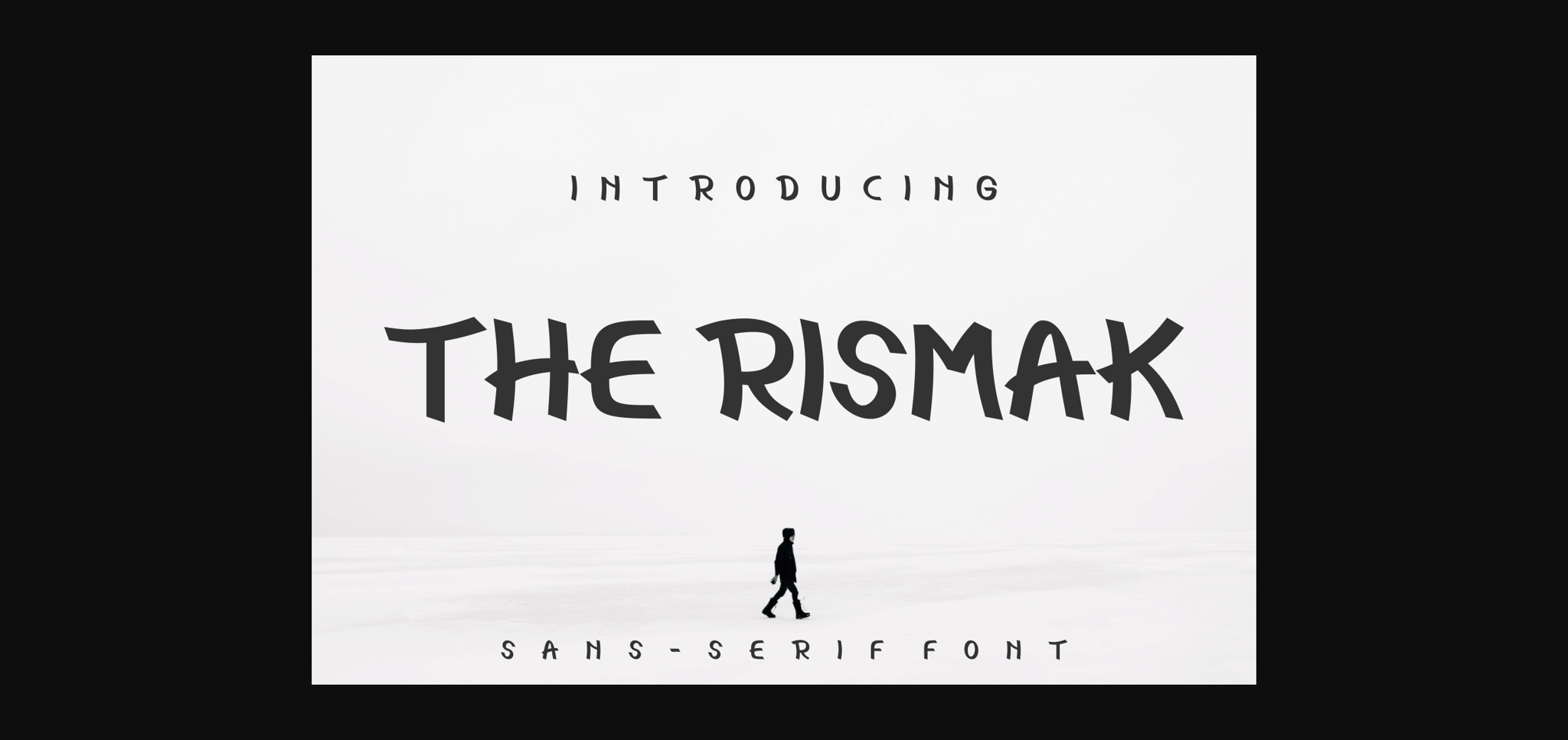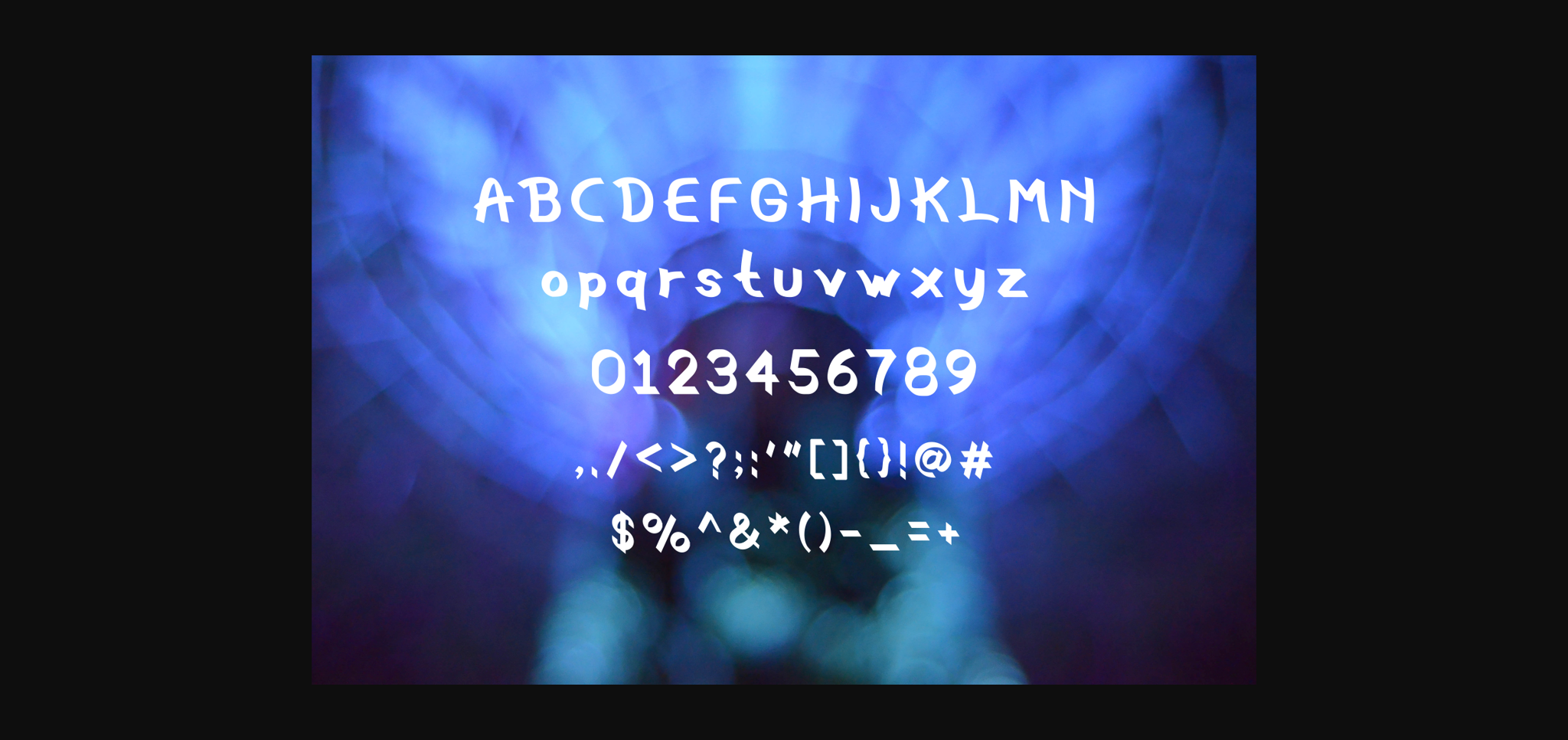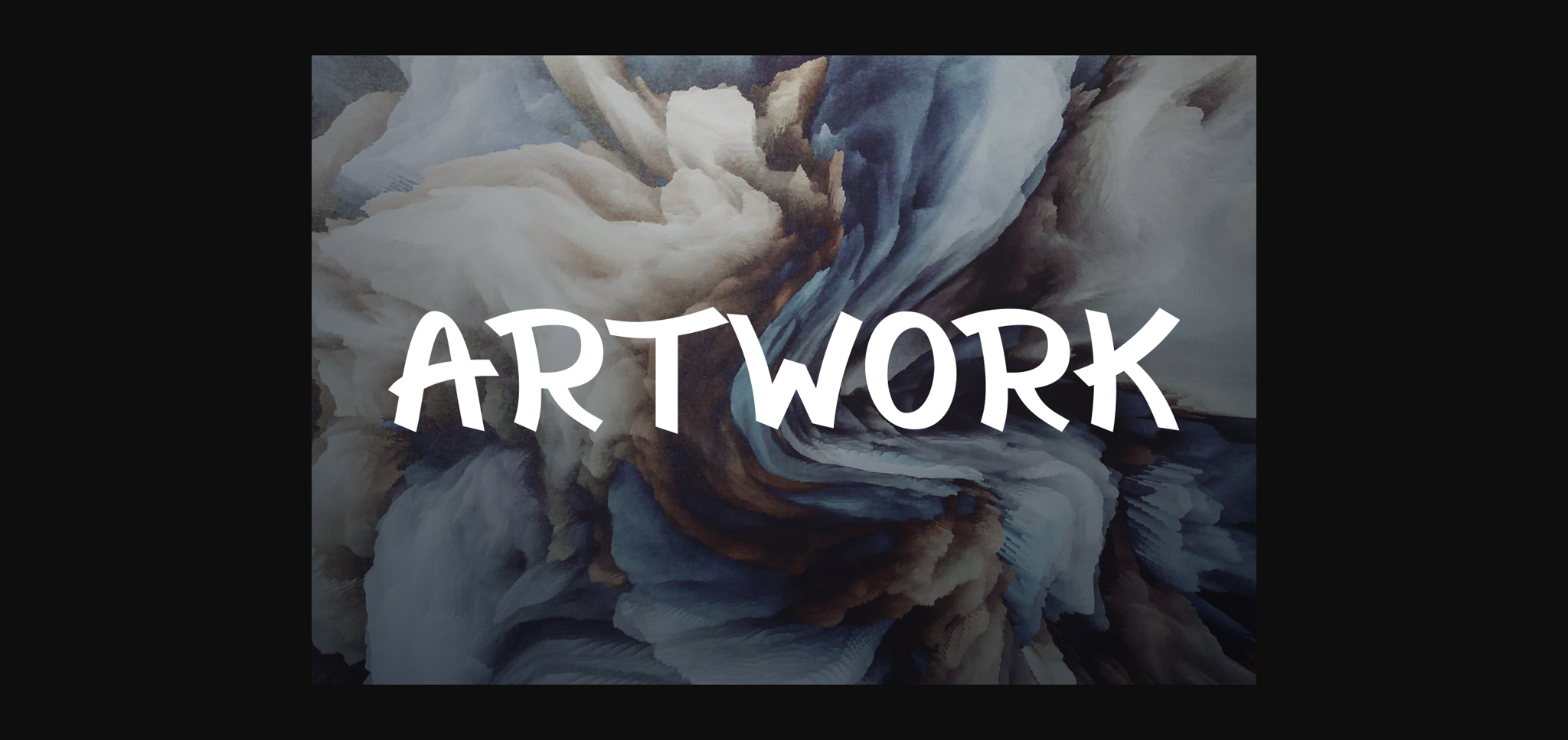
Sans Serif Fonts The Rismak Font 0 280 FacebookTwitterPinterestWhatsApp 1 of 5 ... The Rismak Font Poster 2... The Rismak Font Poster 3... The Rismak Font Poster 4... The Rismak Font Poster 5... About The Rismak Font The Rismak is a cool and unique sans serif font. Fall in love with its incredibly distinct and timeless style and use it to create spectacular designs! DOWNLOAD NOW